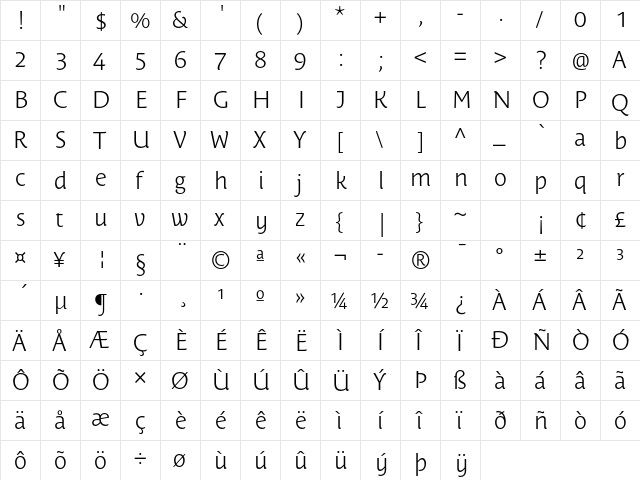
Costa Ptf Light
| Designer | Jean Francois Porchez |
Design Context for Costa Ptf Typeface
Costa Ptf takes a measured approach to typography — its balanced proportions and neutral character make it a reliable workhorse for both digital and print work. Its slender proportions lend an understated elegance to any composition.